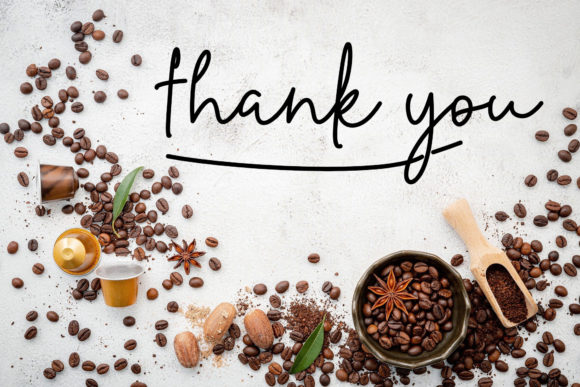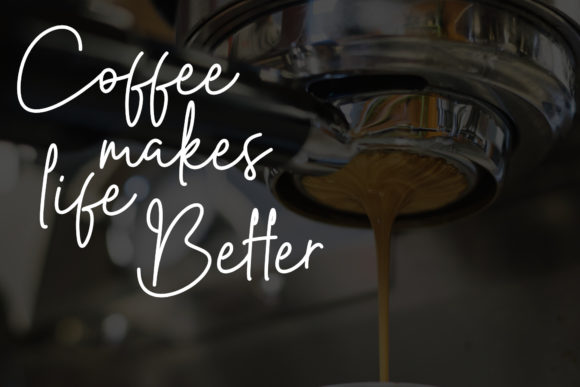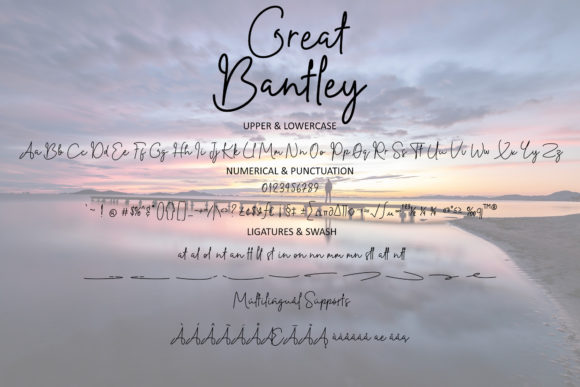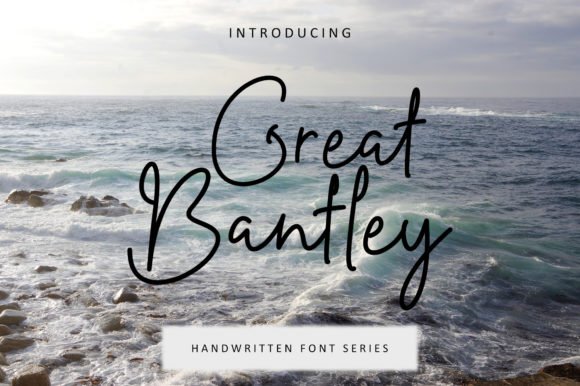
Introduction to Great Bantley Font
Great Bantley is a lovely and timeless handwritten font.
Why Choose Great Bantley Font?
Great Bantley Font offers exceptional quality and versatility, making it a valuable addition to your design toolkit. Whether you’re creating for personal projects or commercial use, Great Bantley Font delivers professional results.